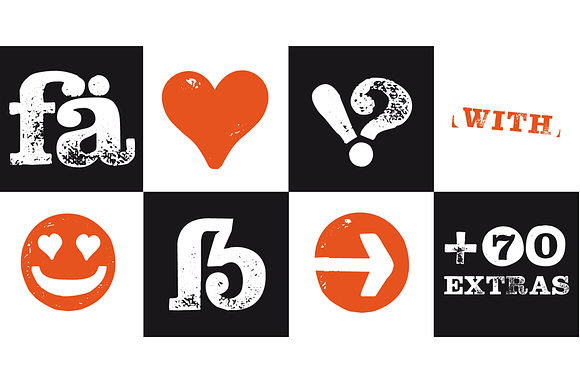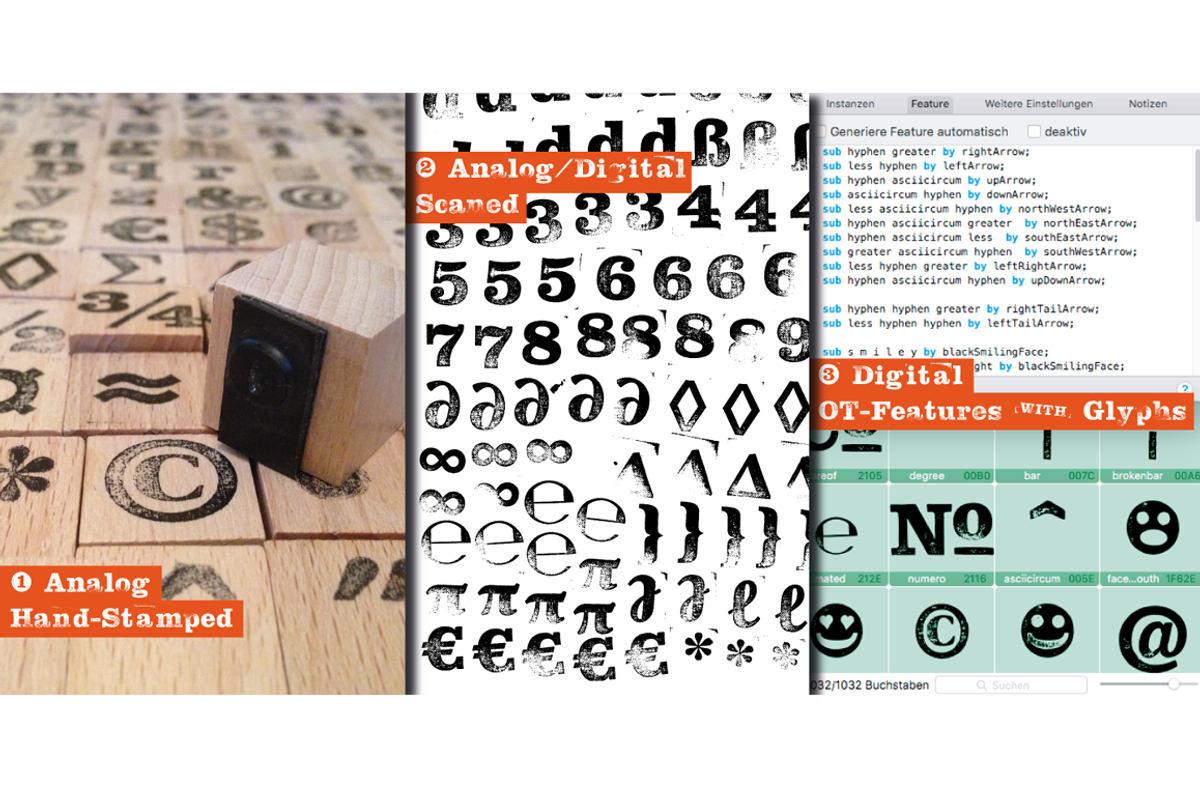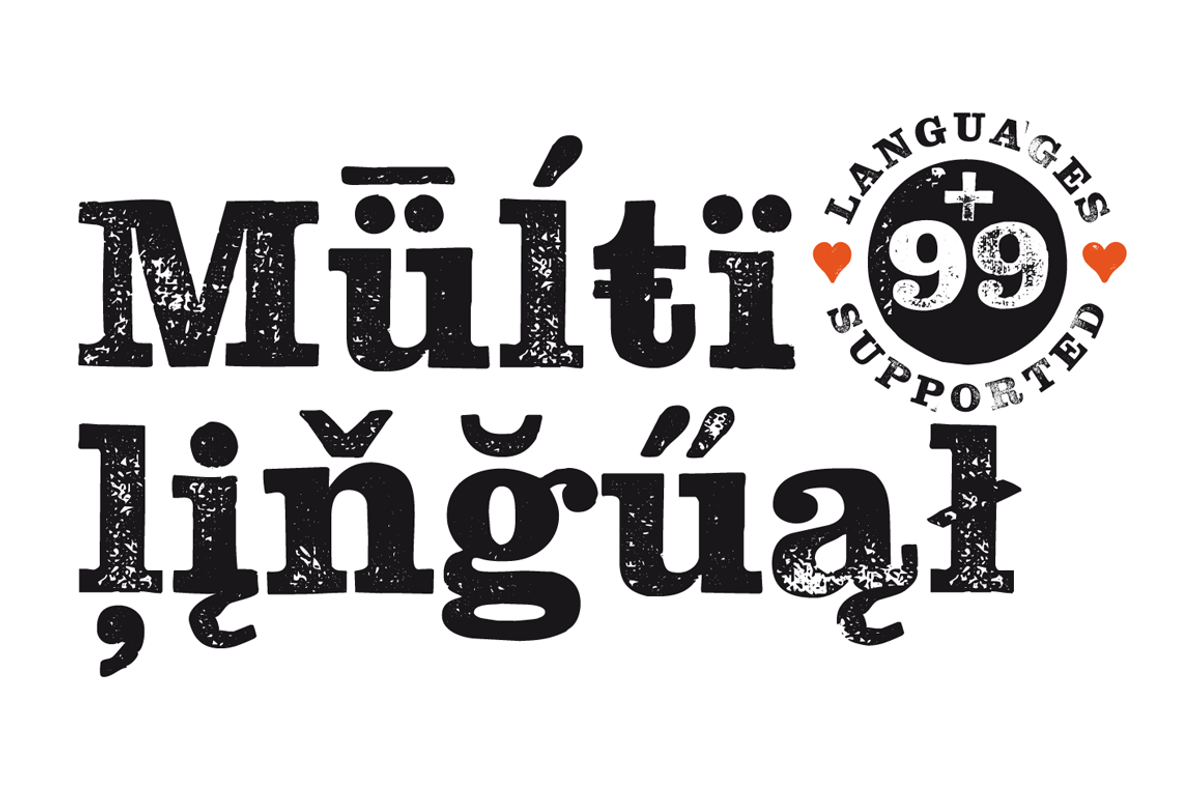
Hand Slab Serif Rough Font + Extras
The typeface “Hand Stamp Slab Serif Rough” is designed for the Typo Graphic Design font foundry in 2017 by Manuel Viergutz. The display font with a classic slab serif type for headlines, based on real rubber stamp letters for a authentic, rough & dirty used stamp-style by hand.
Vintage-look plus state-of-the-art automatic generated OpenType-features (like contextual alternates (calt)). That looped automatically the 5 different letter variants for an individual, varied look. Just a natural handmade character.
For use in logos, magazines, posters, advertisement plus as webfont for decorative headlines. The font works best for display size.
1031 glyphs with 5× A–Z, 0–9 & a–z and 70+ decorative extras like arrows, dingbats, symbols, geomatric shapes, catchwords and many alternative letters. A range of figure set options like oldstyle figures and additionally decorative ligatures (type the word “love” for ❤ … ), Versal Eszett (German Capital Sharp S) and symbols & emojis.
■ Font Category: Display for headline size
■ Specials: Alternative letters, stylistic sets, automatic contextual alternates via OpenType Feature (5× different versions of A–Z & 0–9 + a–z), Euro, kerning pairs, standard & decorative ligatures, Versal Eszett (German Capital Sharp S), 70 extras like Dingbats & Symbols, arrows, hearts, emojis/smileys, stars, further numbers, lines & shapes